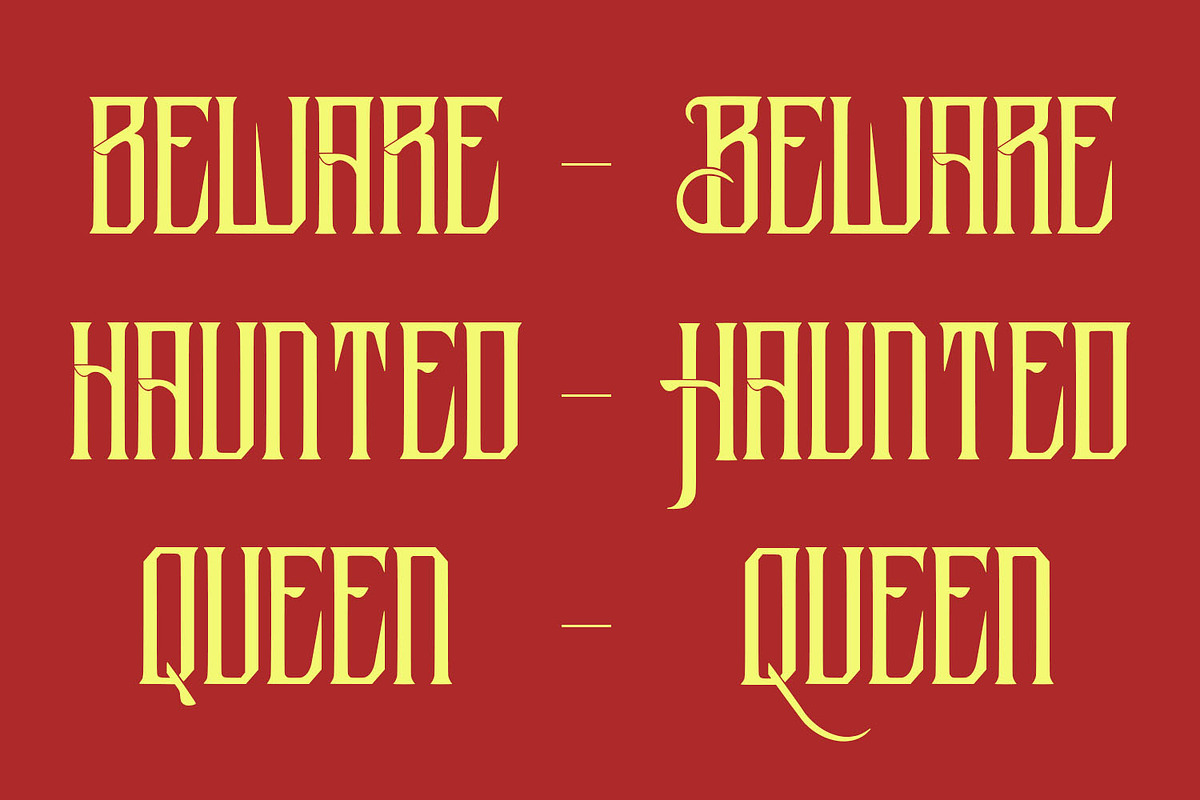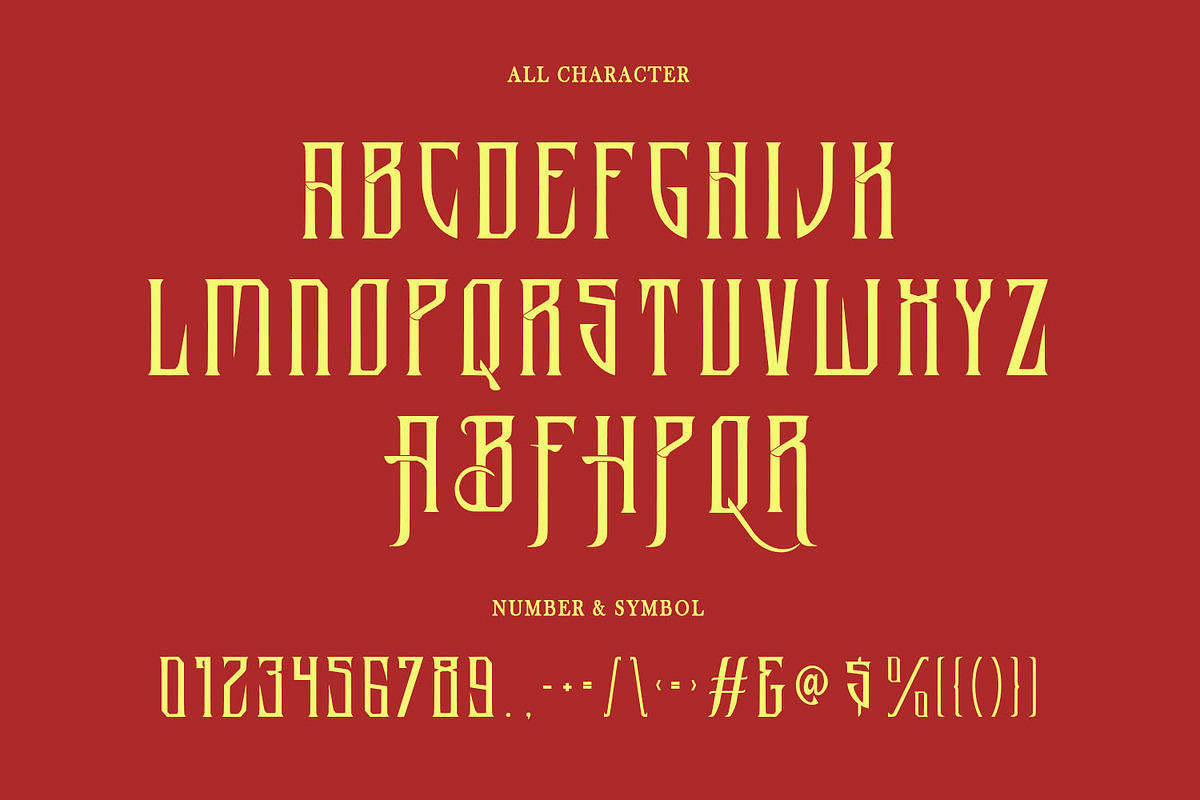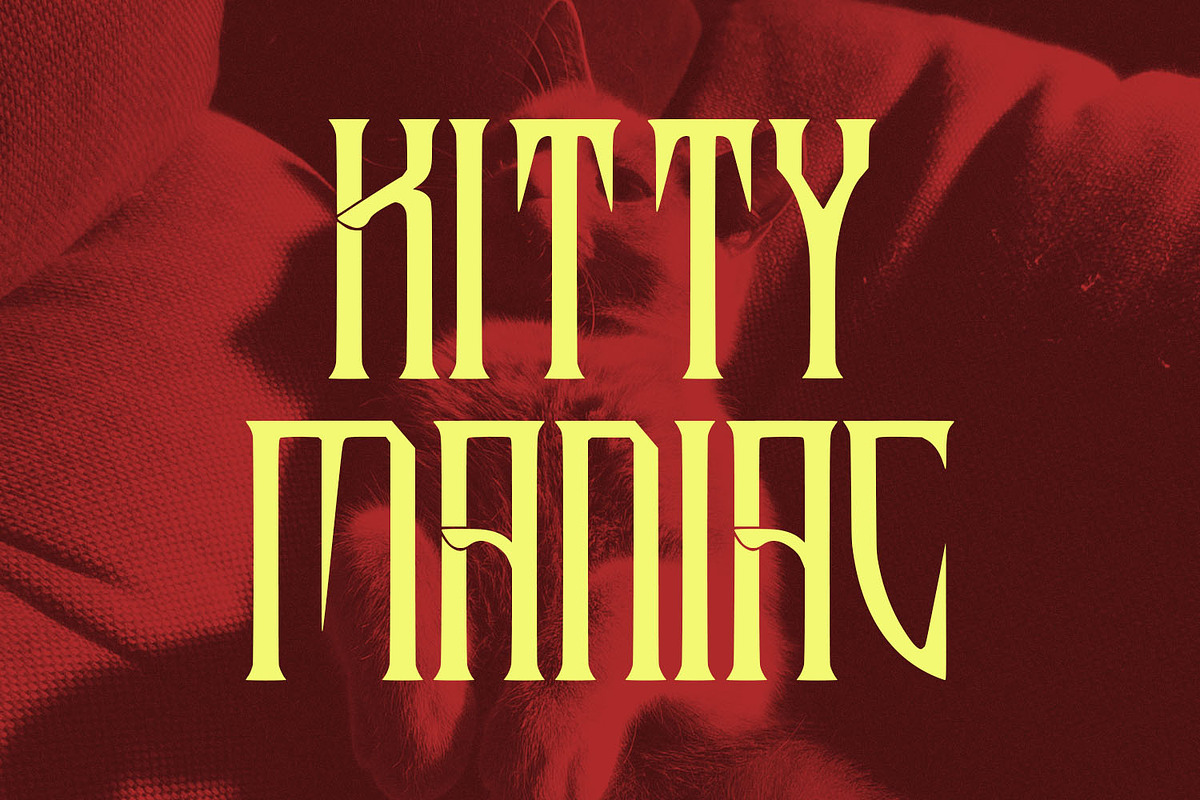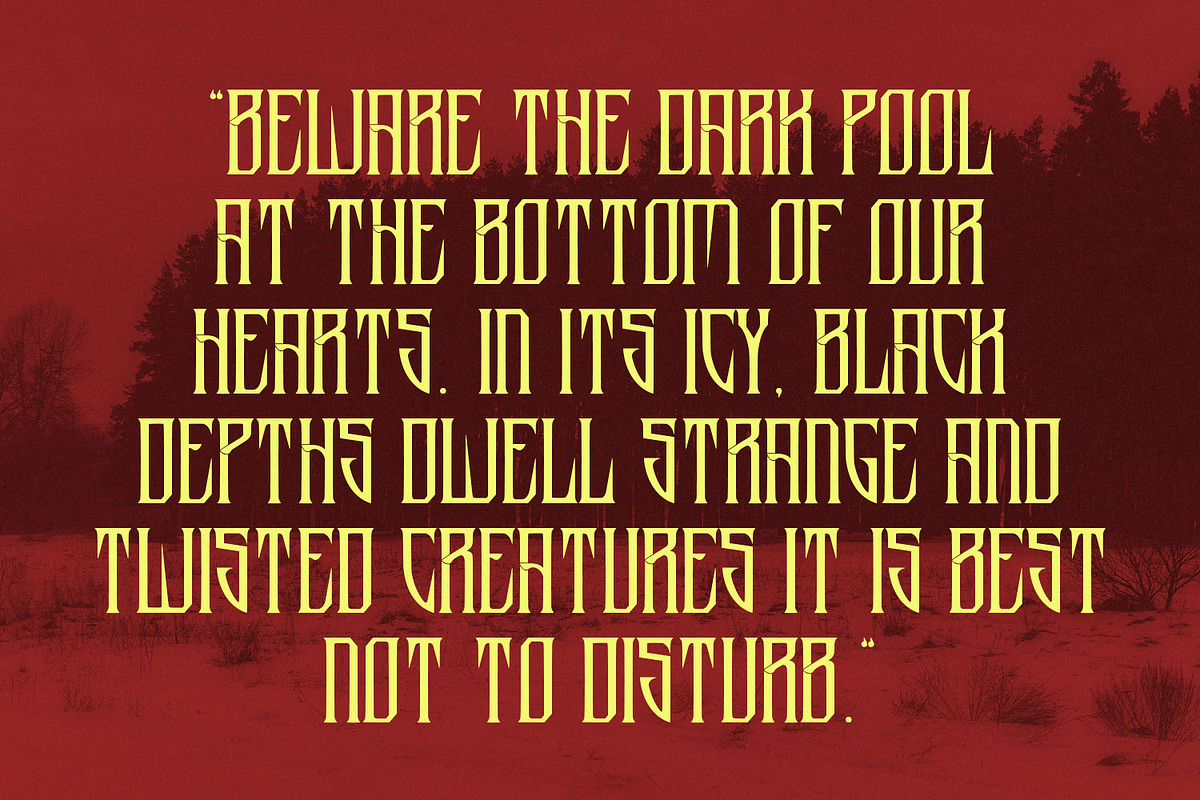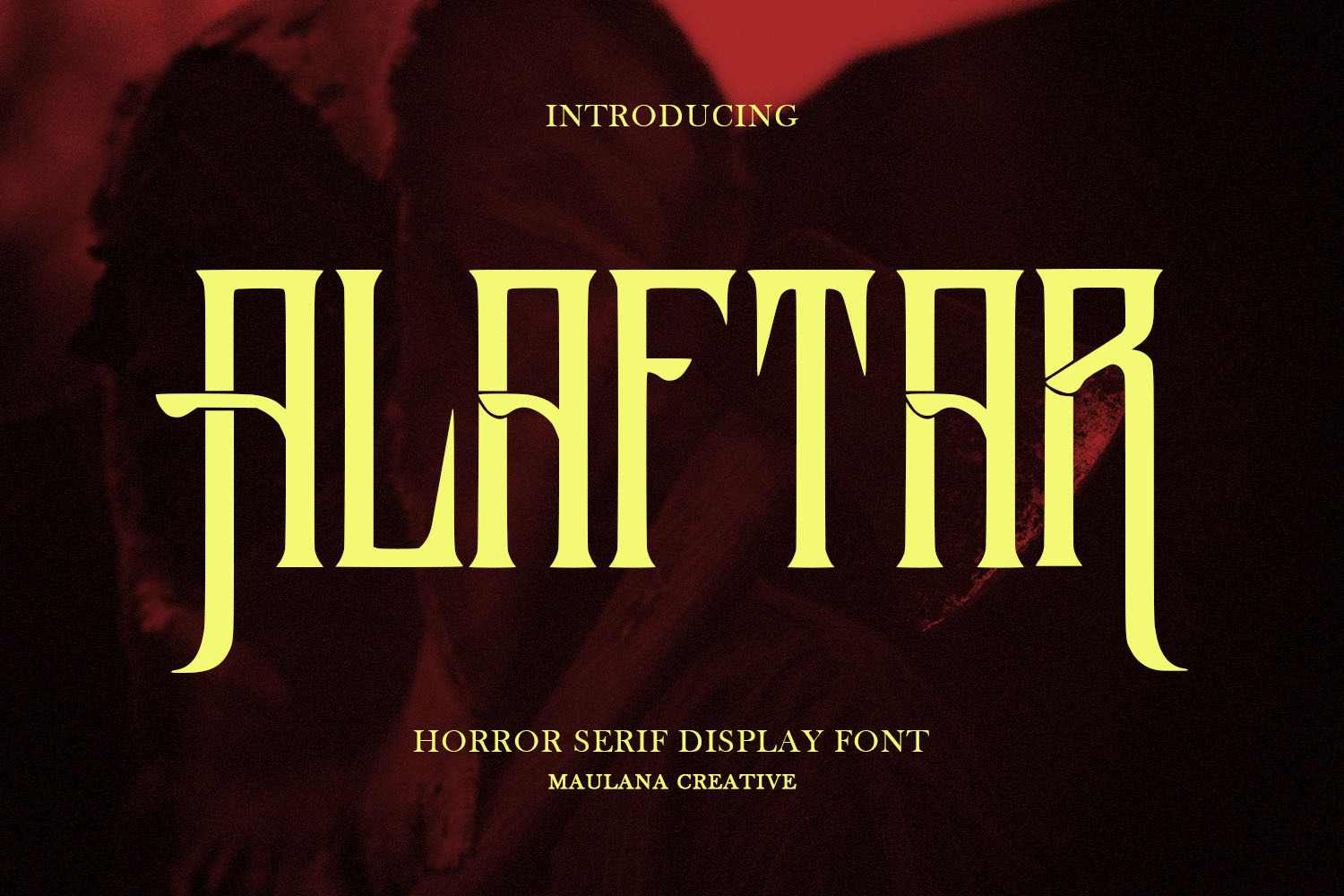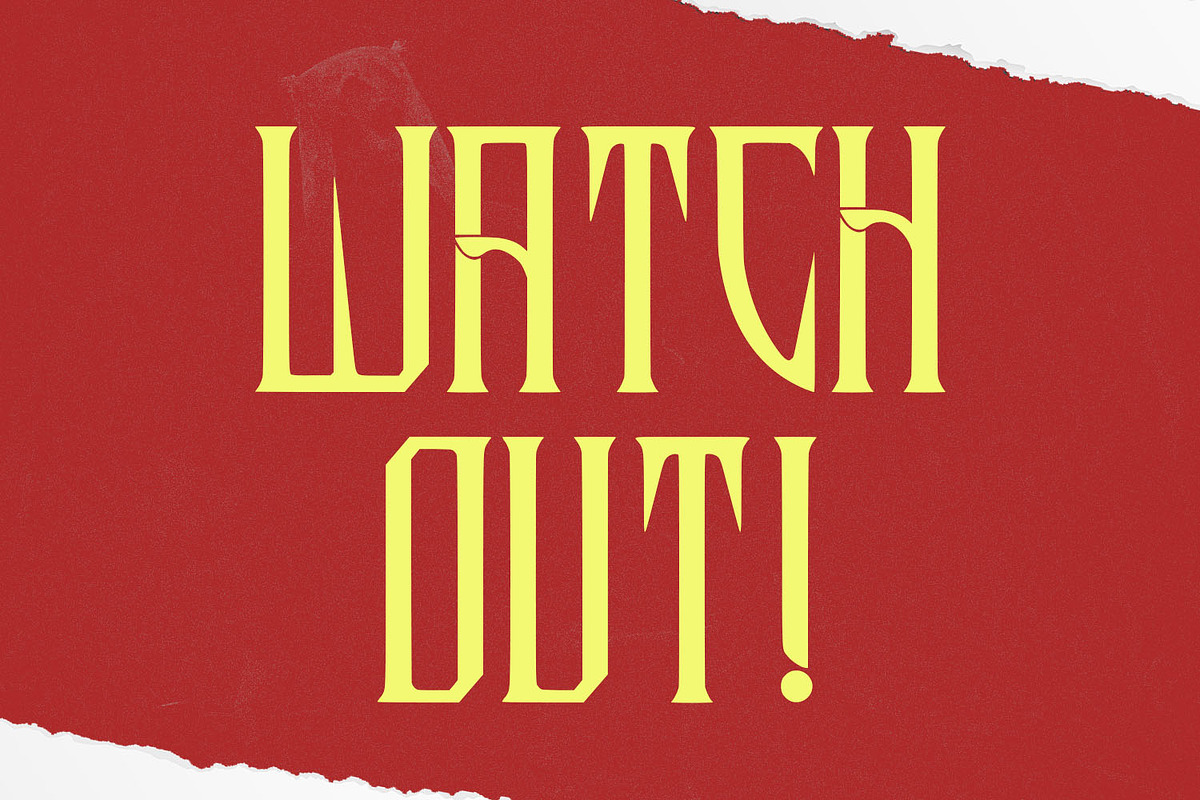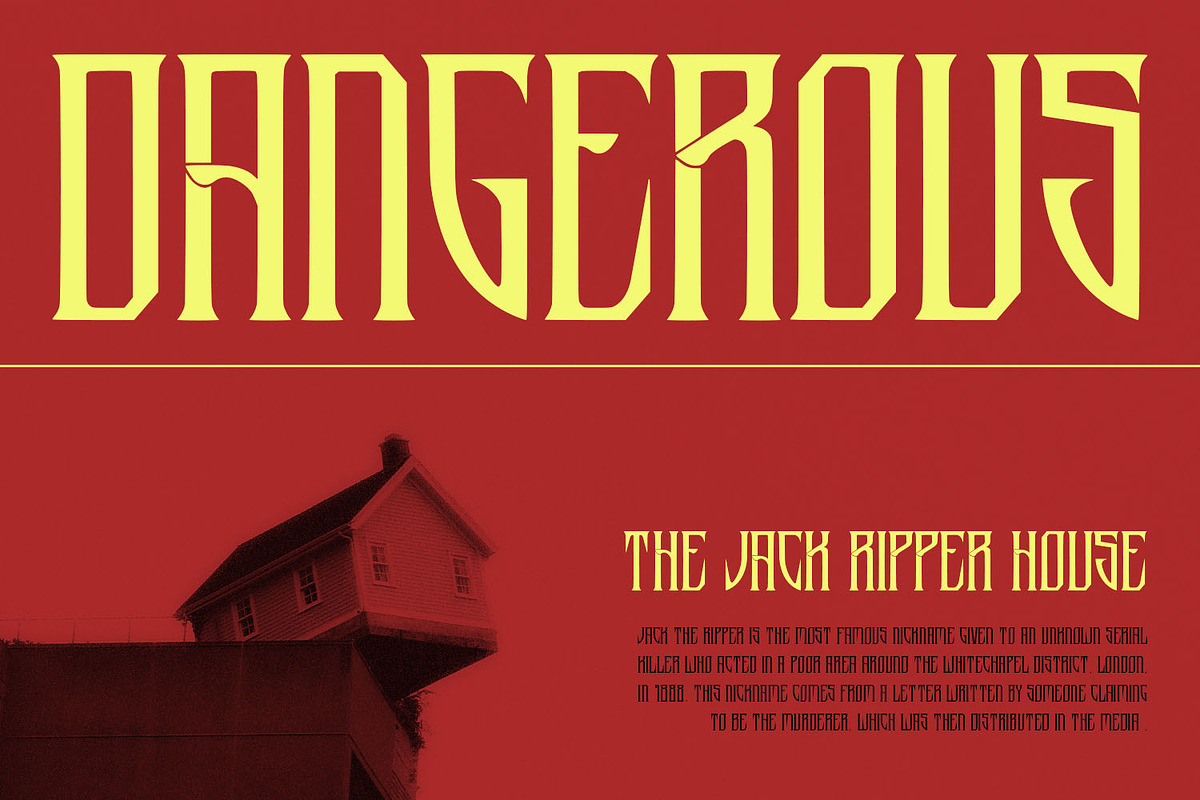
Alaftar Display Font
Alaftar serif display typeface. Heavy stroke, fun character with a bit of ligatures. To give you an extra creative work. Alaftar serif display typeface support multilingual more than 100+ language. This font is good for logo design, Social media, Movie Titles, Books Titles, a short text even a long text letter and good for your secondary text font with script or serif. Make a stunning work with Alaftar serif display typeface.